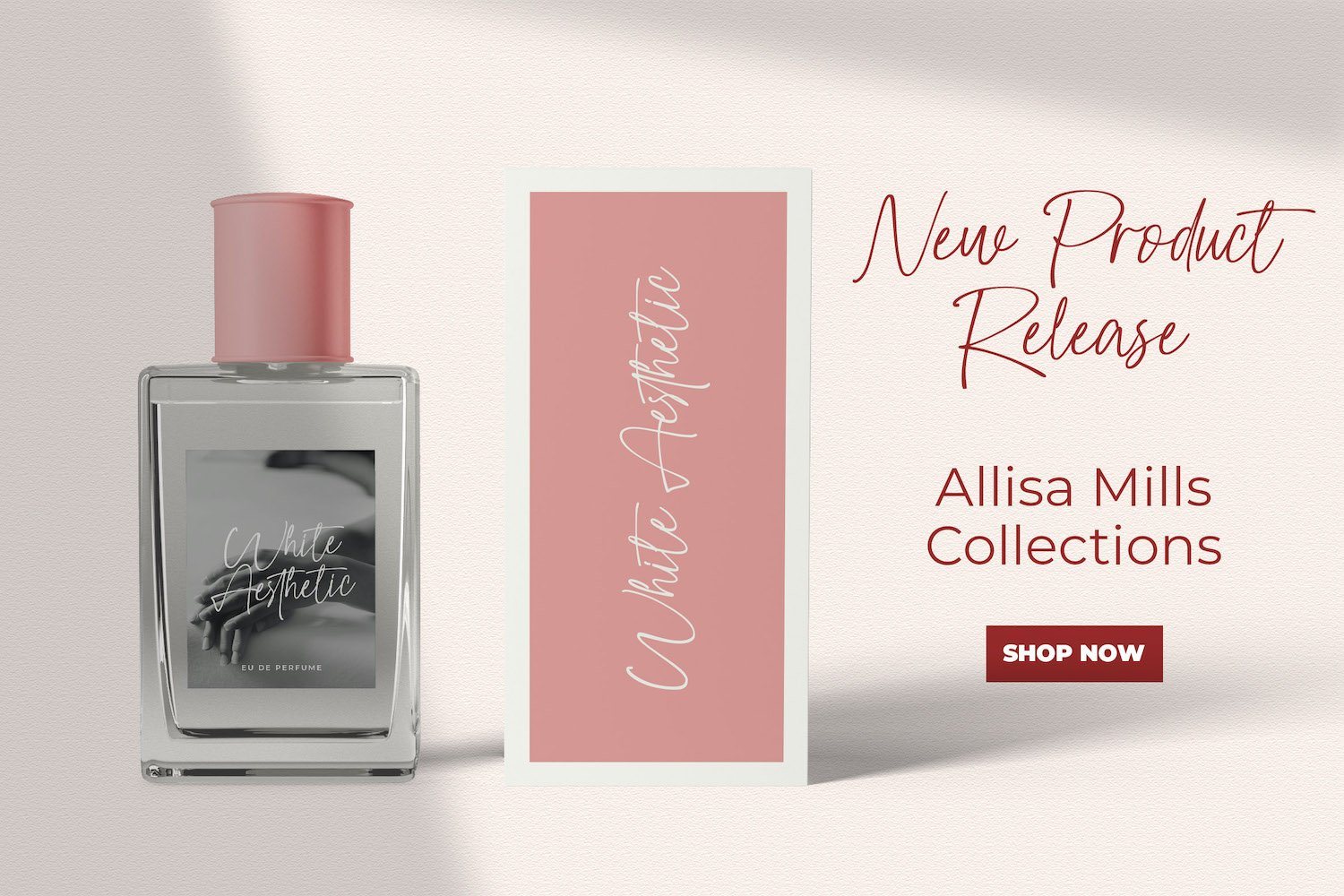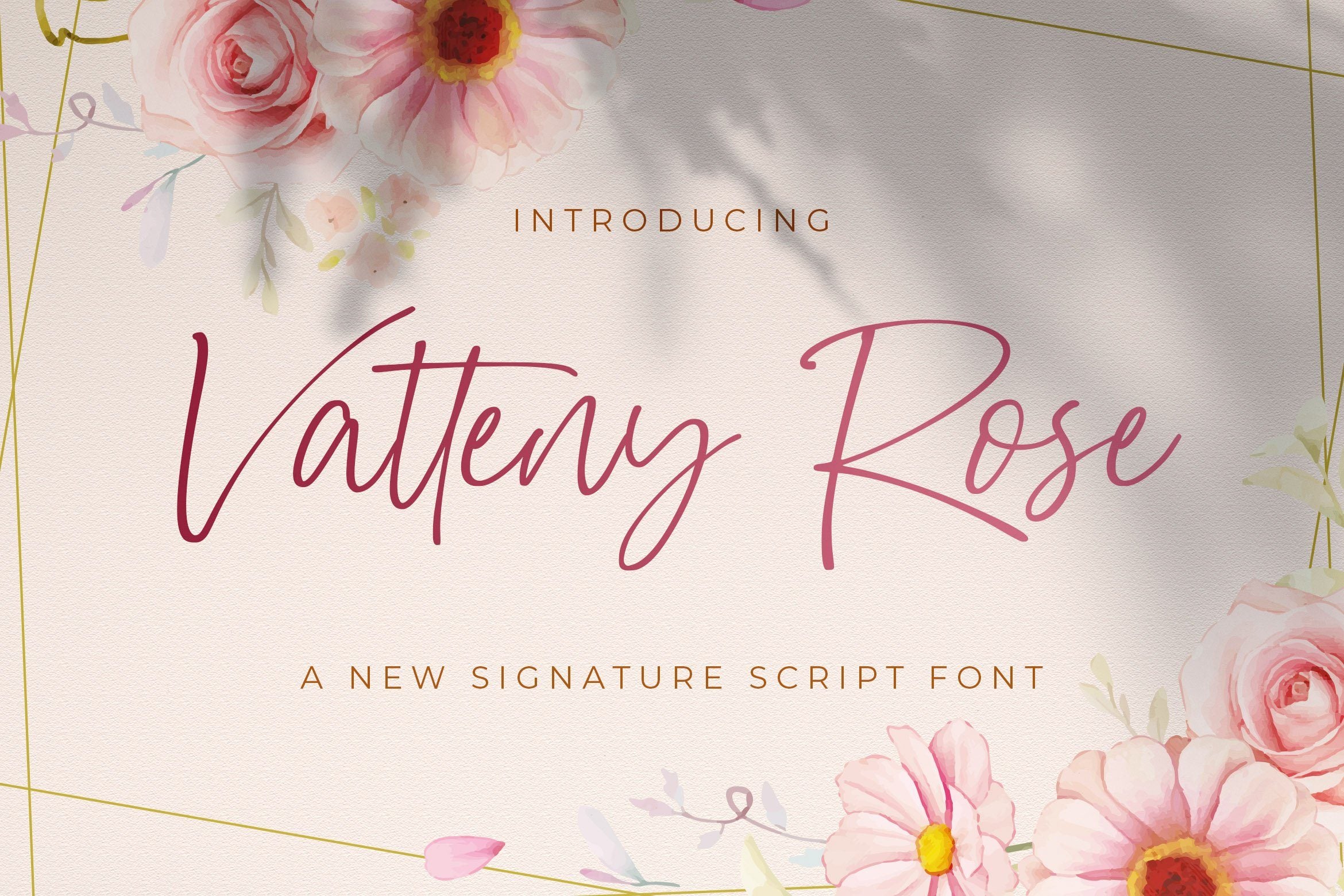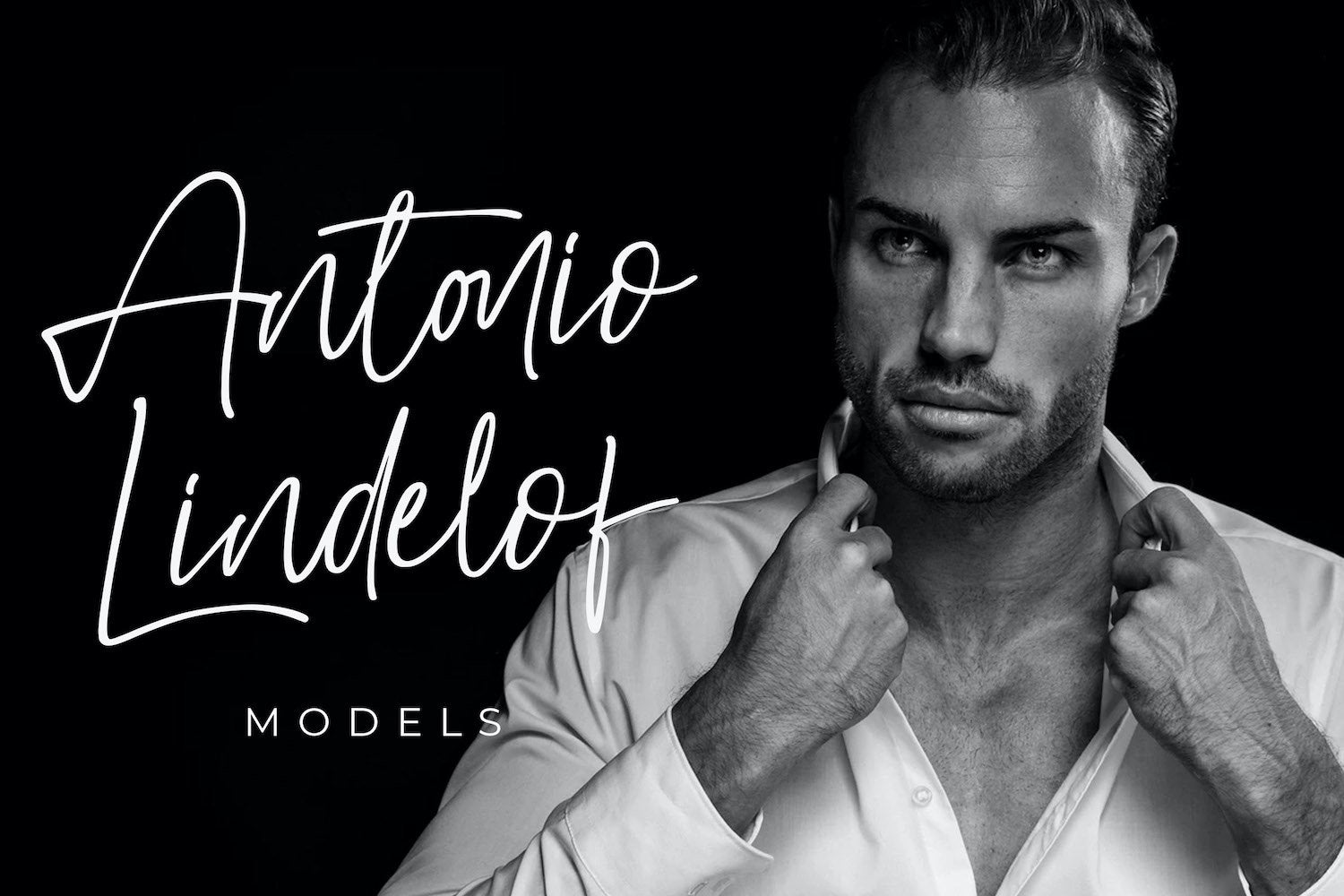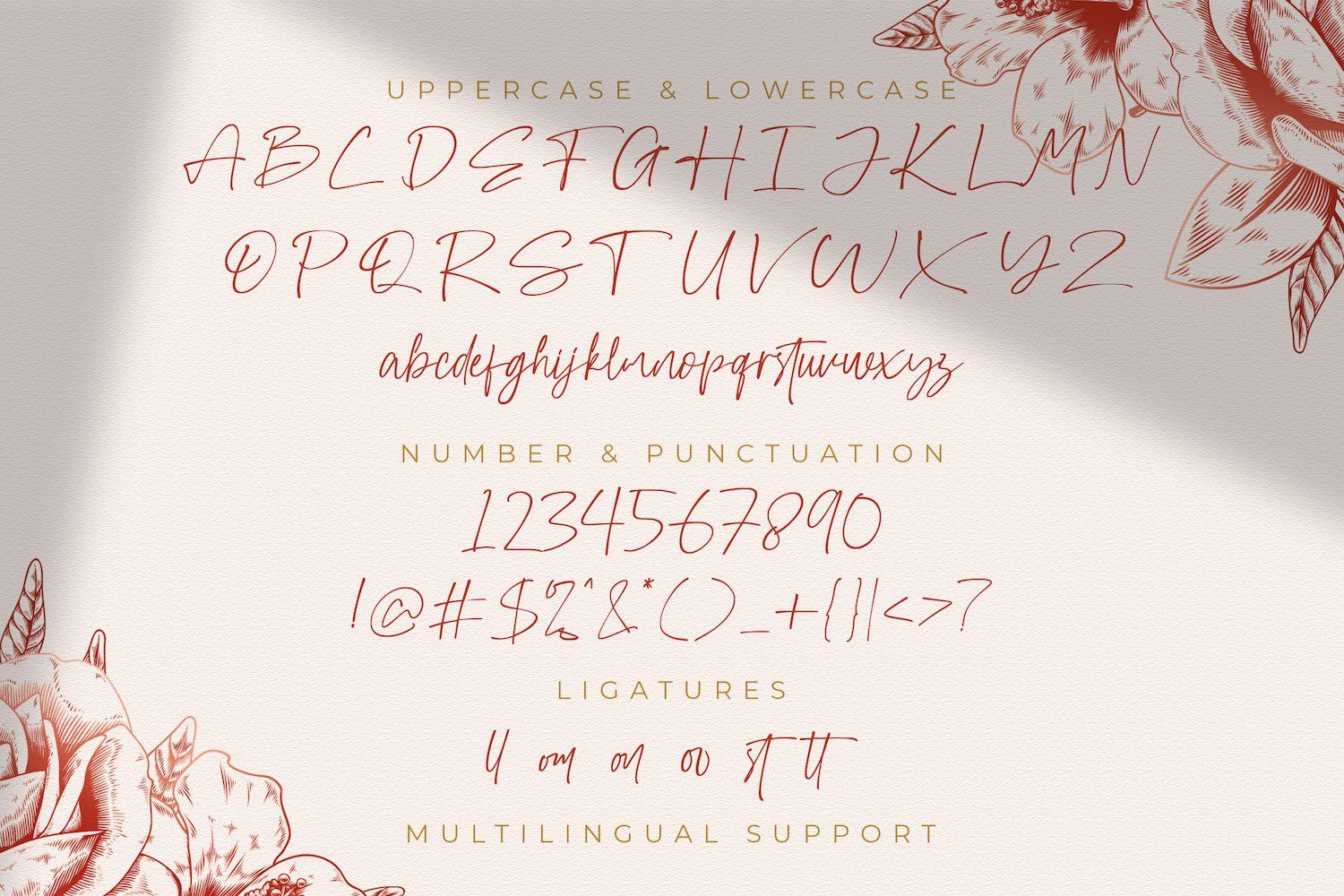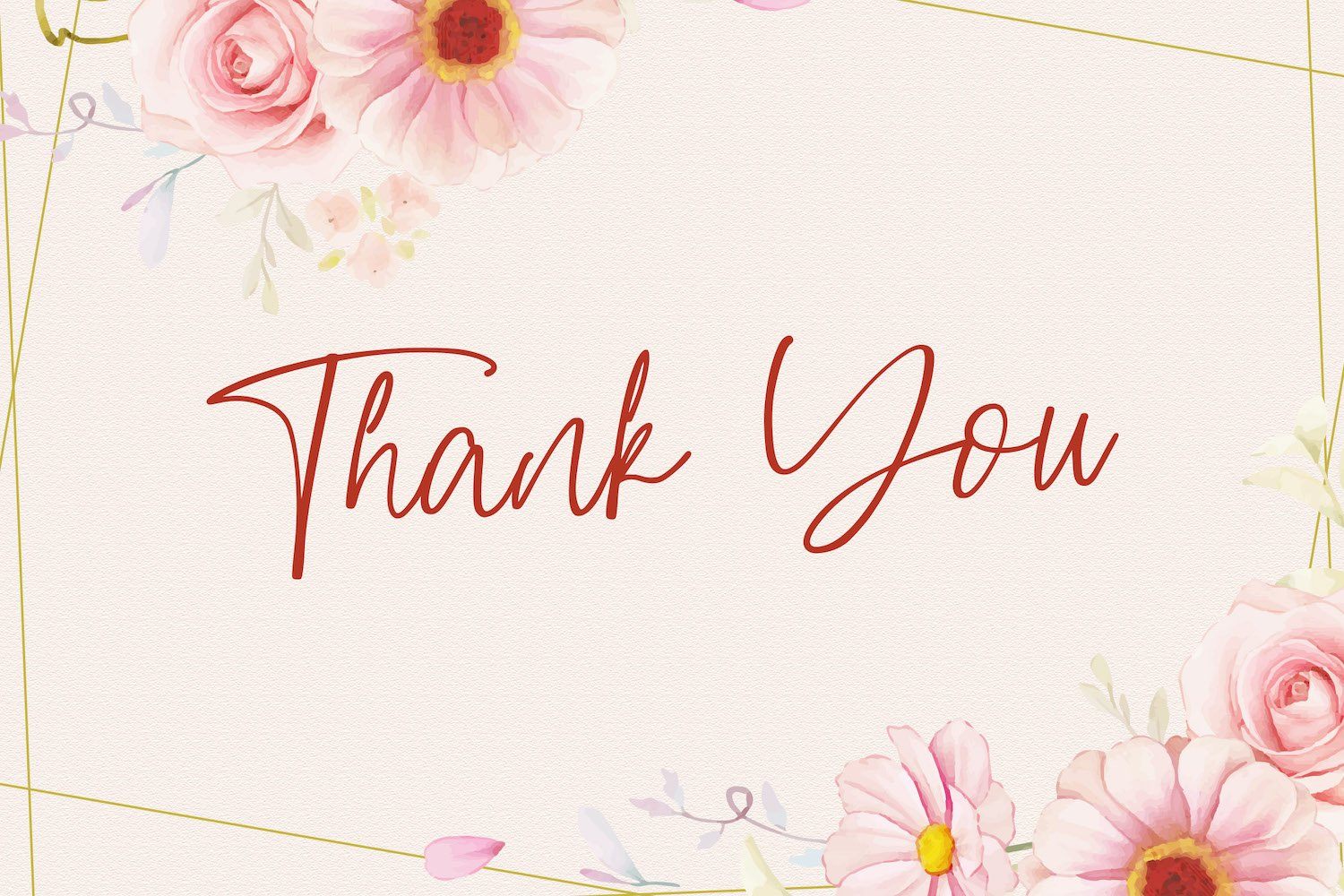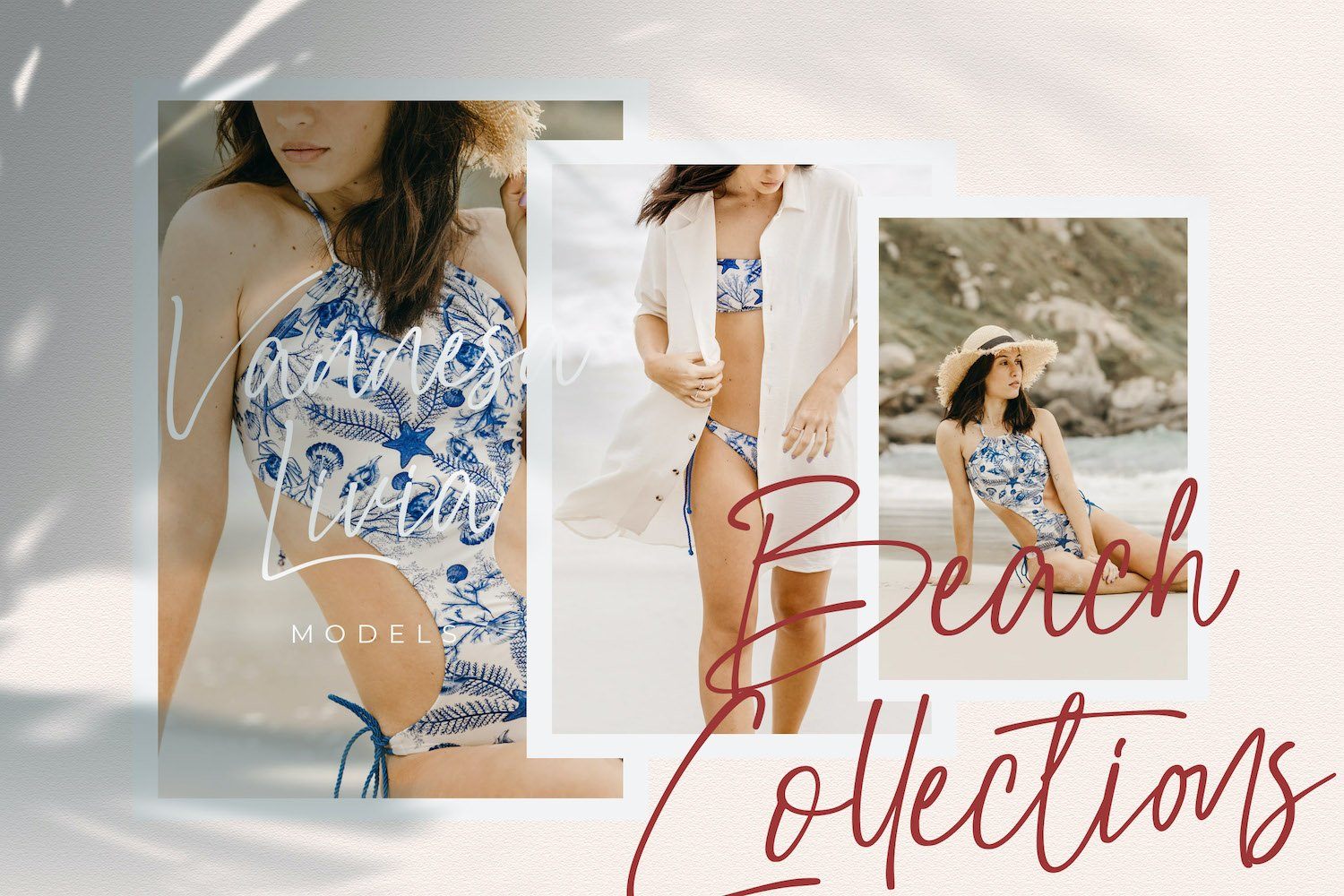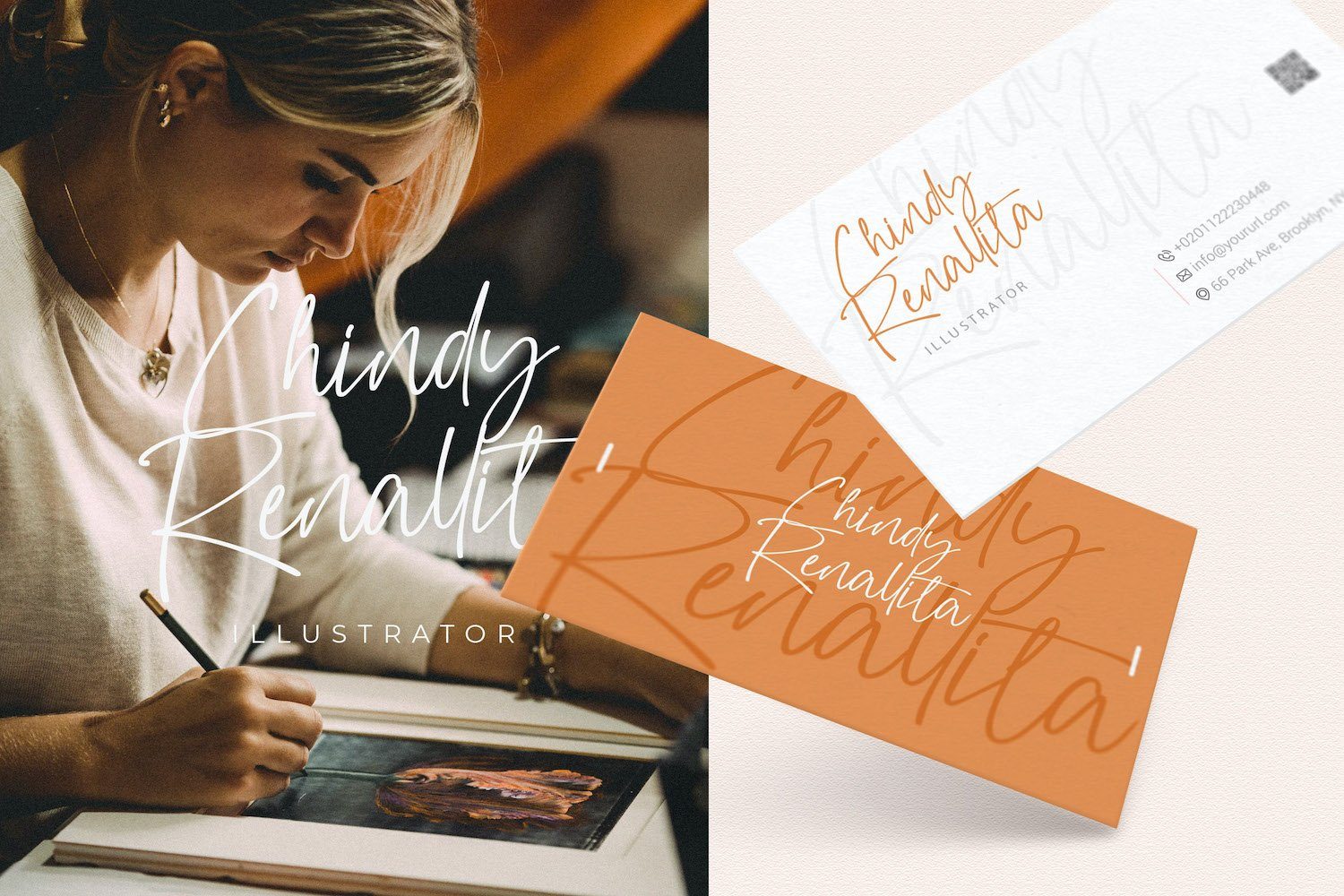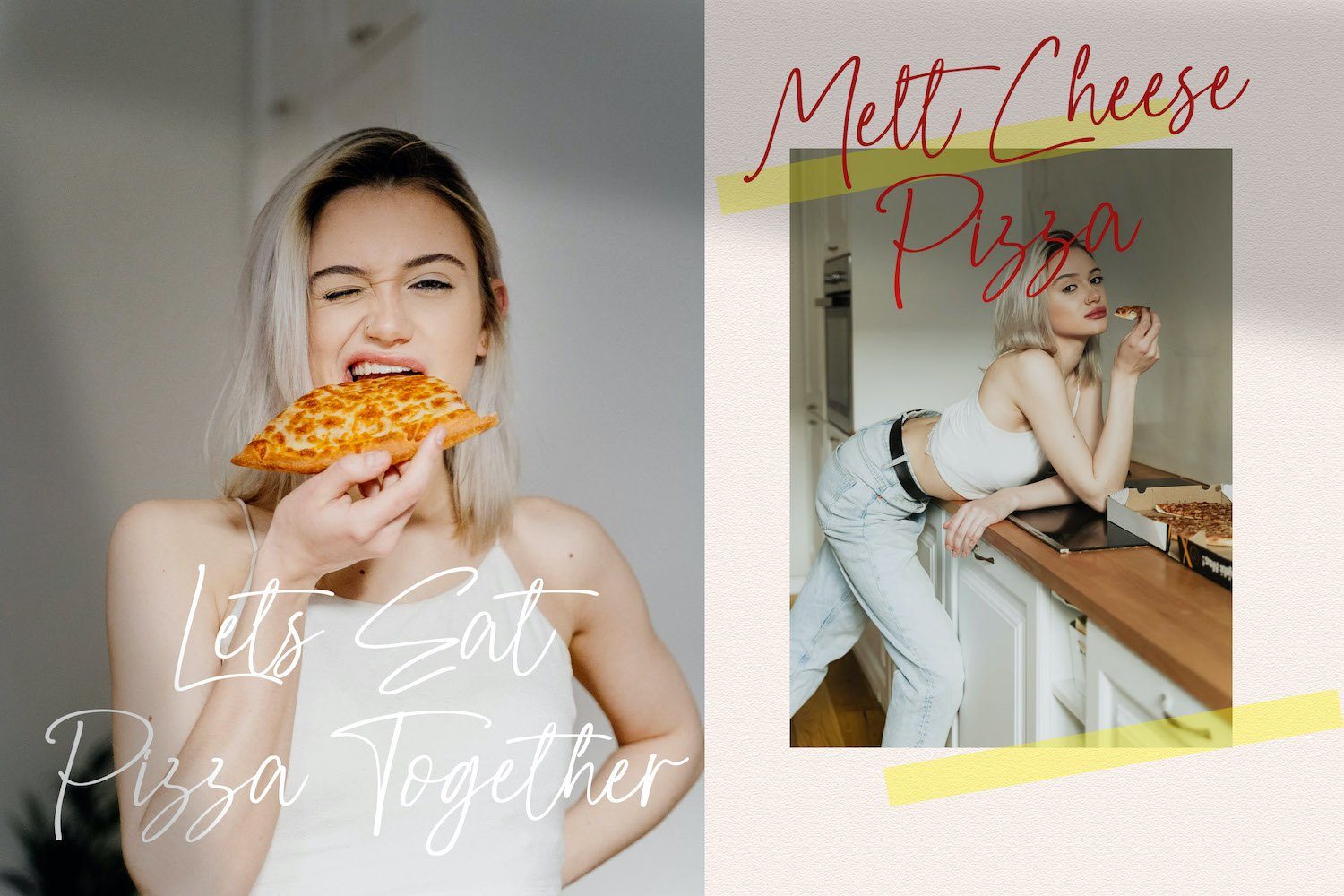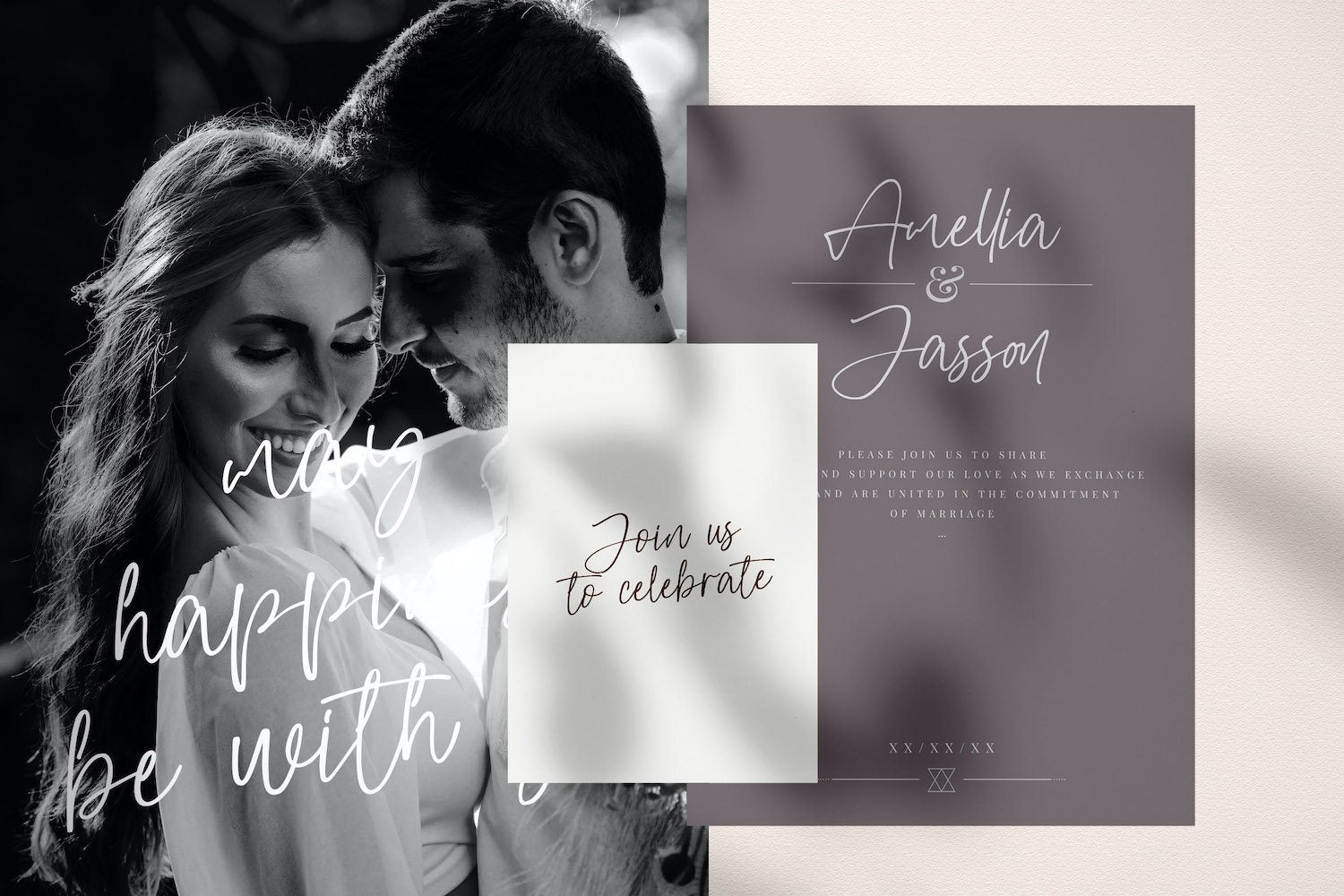
Vatteny Rose – Signature Script Font
About Vatteny Rose – Signature Script Font
Introducing Vatteny Rose – Signature Script Font Vatteny Rose is a delicate, elegant and flowing handwritten font. It has beautiful and well balanced characters and as a result, it matches a wide pool of designs. Add it to your most creative ideas and notice how it makes them come alive! FEATURES – TTF/OTF/WOFF/WOFF2 – Ligatures – Uppercase and Lowercase letters – Numbering and Punctuations – Multilingual Support – Works on PC or Mac – Simple Installation – Support Adobe Illustrator, Adobe Photoshop, Adobe InDesign, also works on Microsoft Word Hope you Like it. Thanks.